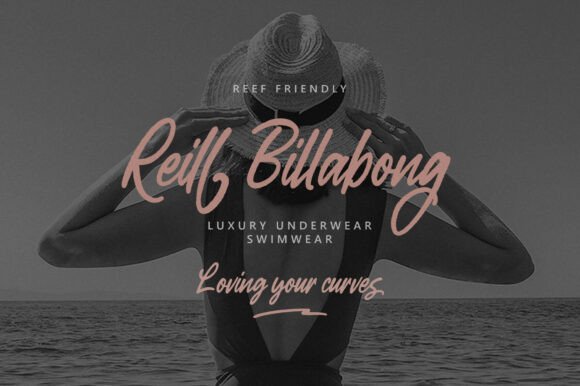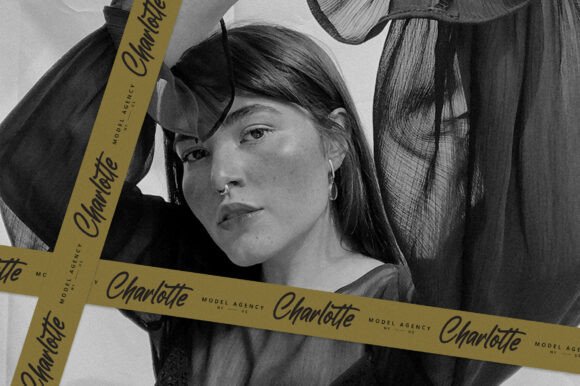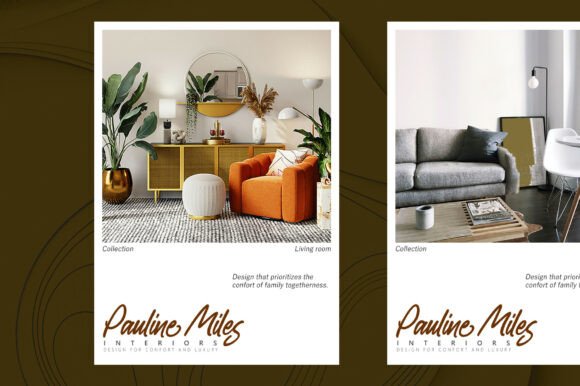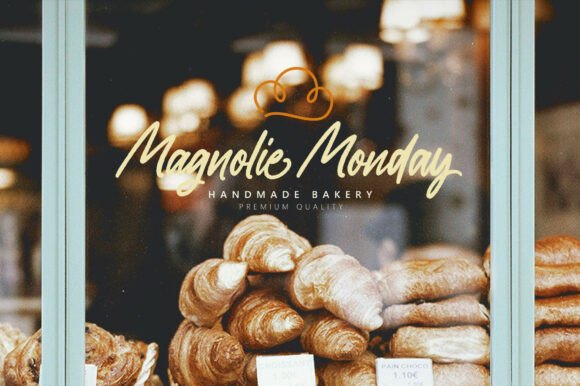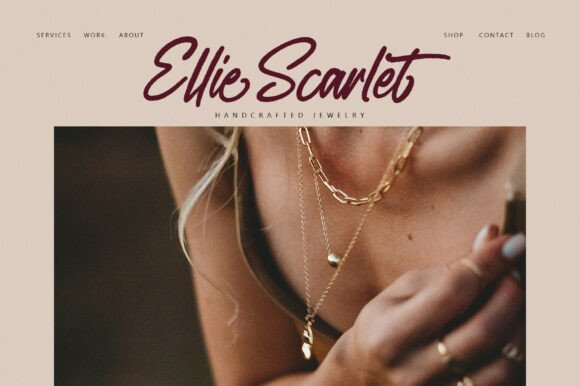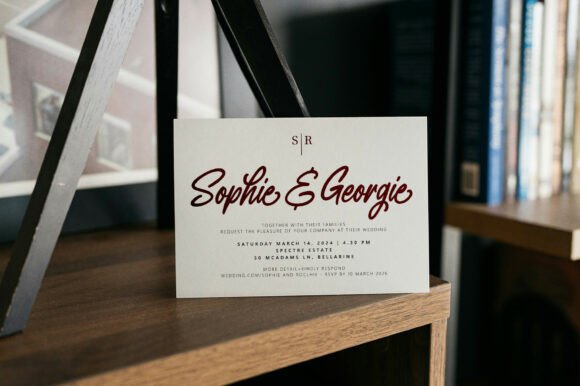
Introducing Growthness Font: A Handwritten Gem for Creative Projects
Are you on the lookout for a font that can add a touch of warmth and personality to your designs? Look no further than Growthness Font, a beautiful handwritten font that’s perfect for projects that require a natural, hand-drawn vibe. In this article, we’ll dive into the features and benefits of Growthness Font, and explore how it can elevate your branding, packaging, posters, and more.
What is Growthness Font?
Growthness Font is a carefully crafted handwritten font designed to bring a sense of organic charm to your projects. Its natural, rough texture gives it a unique and authentic feel that’s perfect for designs that require a personal touch. Whether you’re working on branding, product packaging, movie posters, art posters, quotes, logo design, name cards, blog headers, or fashion apparel, Growthness Font is the perfect choice.
Key Features of Growthness Font
- Natural Rough Texture: Growthness Font features a beautiful natural rough texture that gives it a hand-drawn feel.
- Uppercase & Lowercase Support: The font includes both uppercase and lowercase letters, making it versatile for a wide range of projects.
- International Language & Symbols Support: Growthness Font supports international languages and symbols, making it a great choice for global brands.
- Punctuation & Number Support: The font includes punctuation and numbers, ensuring that you have everything you need to create professional-looking designs.
- PUA Unicode Range Standard: Growthness Font uses the PUA Unicode range standard, making it easy to access and use.
- Stylistic Alternates: The font features stylistic alternates, allowing you to create unique and varied designs.
- Stylistic Set Character Variant: Growthness Font includes a stylistic set character variant, giving you even more creative options.
- Contextual Support: The font supports contextual alternatives, ensuring that your designs look natural and flowing.
Why Choose Growthness Font?
So why should you choose Growthness Font for your next project? Here are just a few reasons:
- Unique and Authentic Look: Growthness Font has a unique and authentic look that’s perfect for designs that require a personal touch.
- Versatile: The font is versatile and can be used in a wide range of projects, from branding and packaging to posters and apparel.
In conclusion, Growthness Font is a beautiful handwritten font that’s perfect for projects that require a natural, hand-drawn vibe. With its unique texture, versatile features, and ease of use, it’s an excellent choice for designers and crafters alike. Whether you’re working on branding, packaging, posters, or more, Growthness Font is sure to elevate your designs and help you achieve your creative goals.